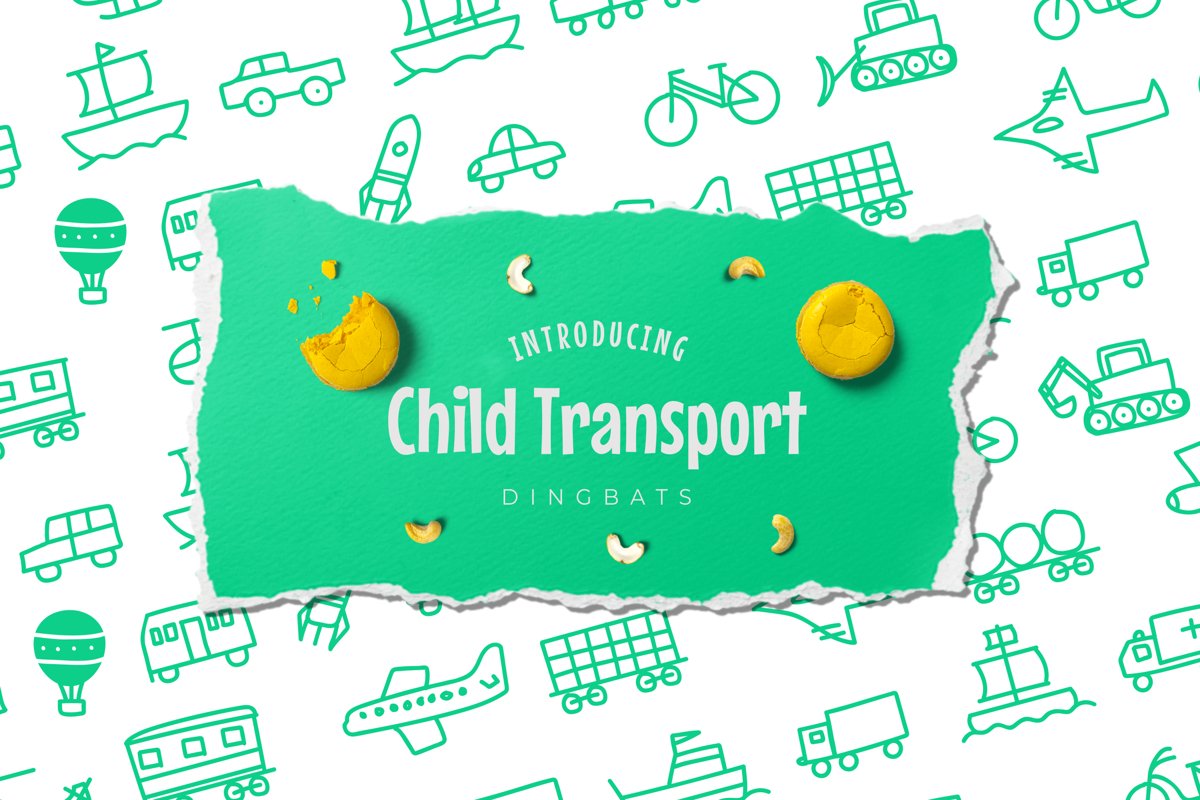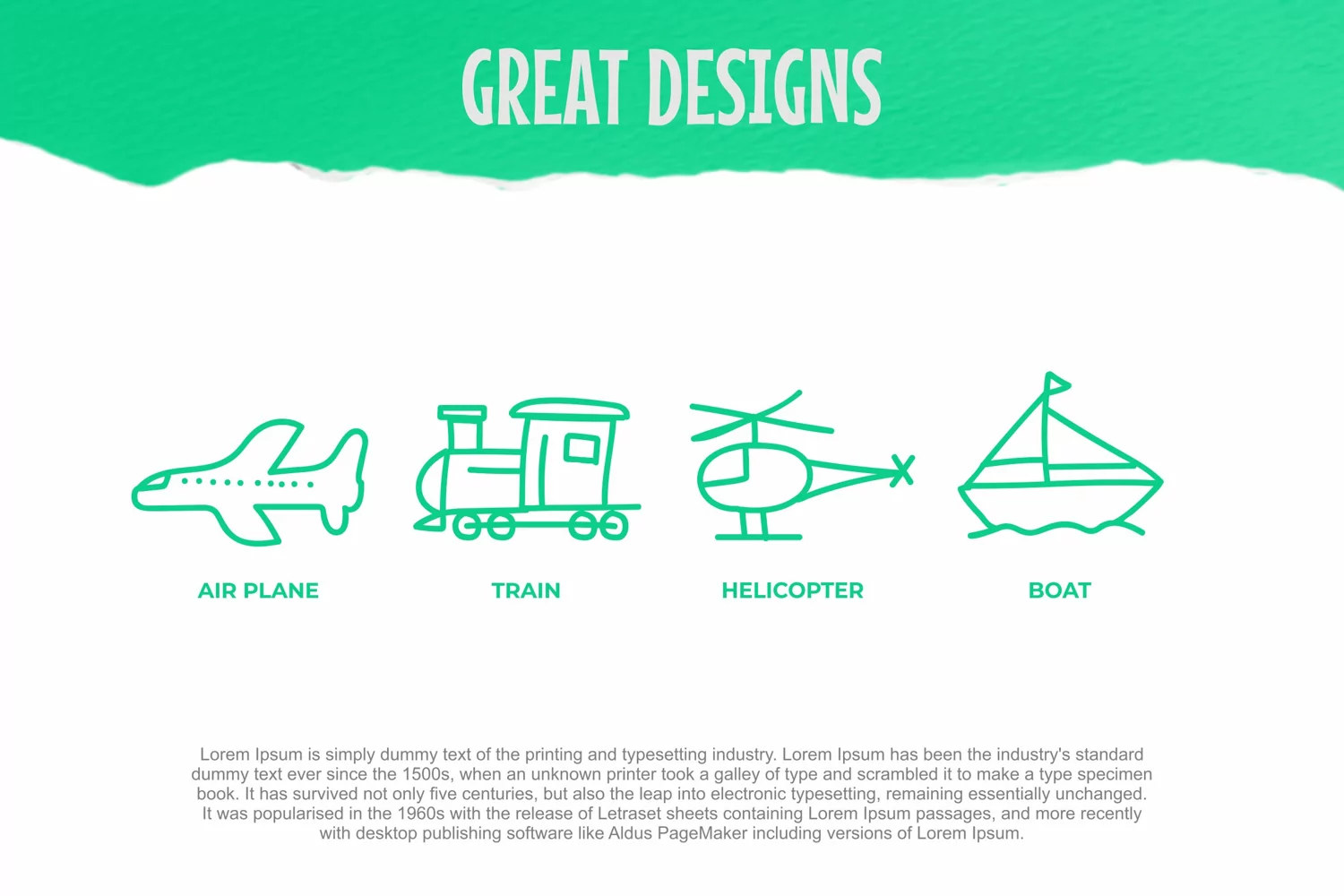
Suitable for some designs such as the logotype, brand, packaging, quotes, music poster, t-shirt, cover book and more custom design. The features uppercase, lowercase, numeral, punctuation & symbol, multilingual support.
child transport dingbats